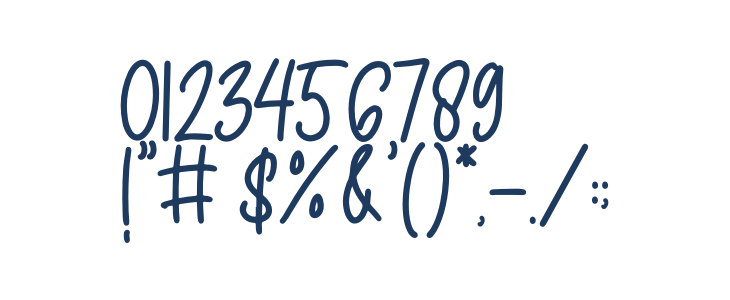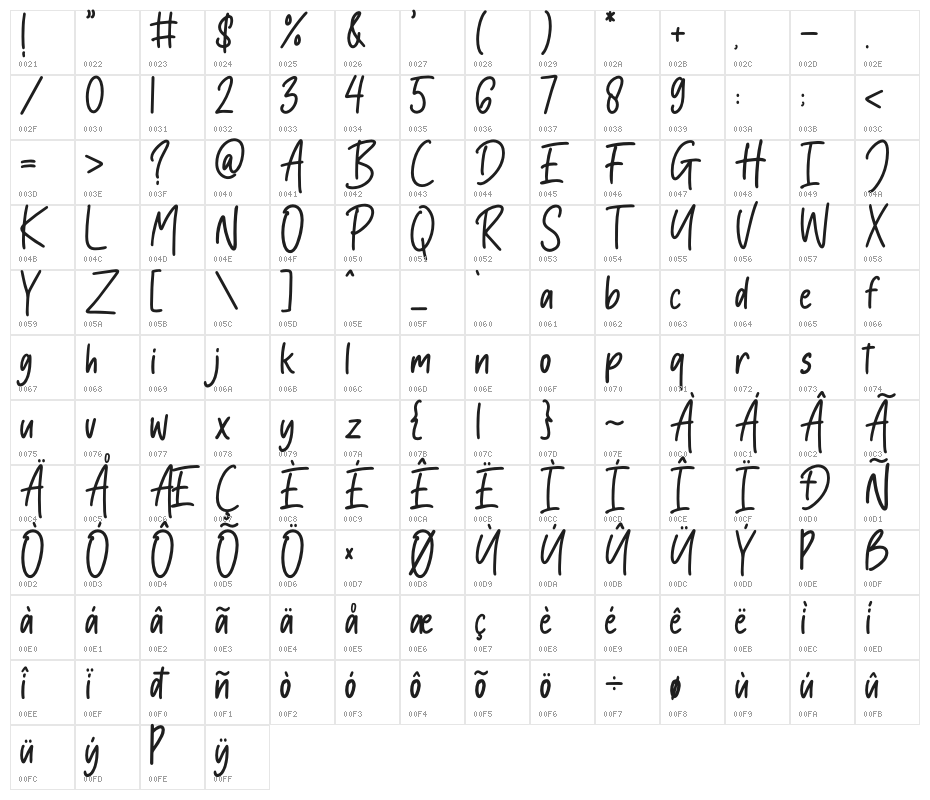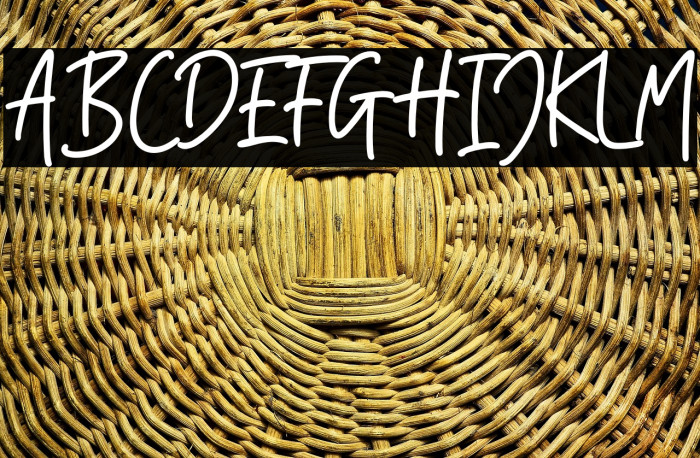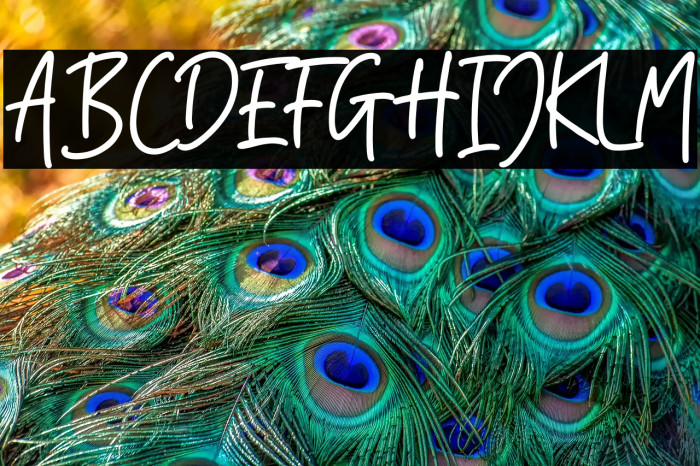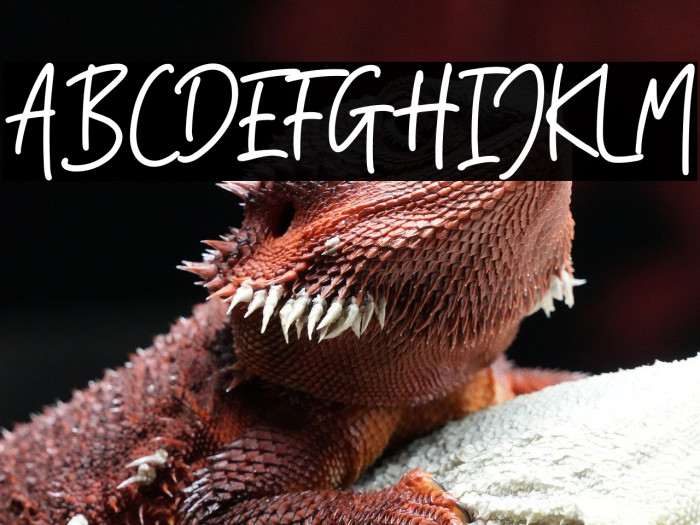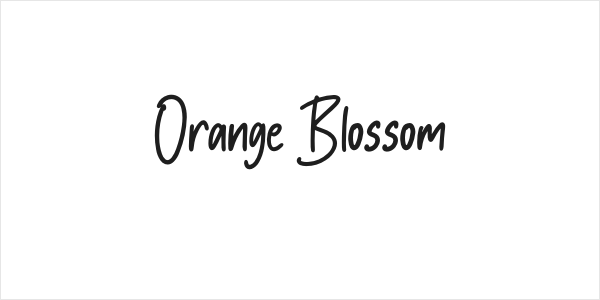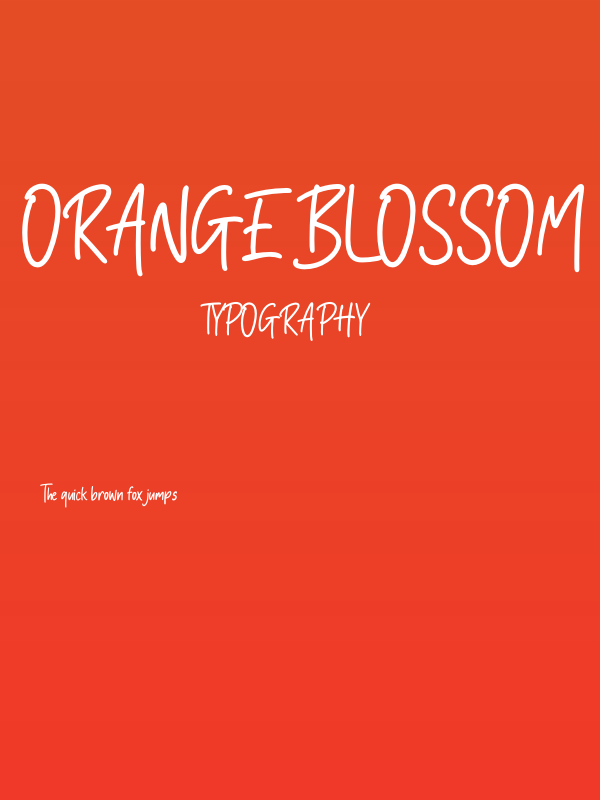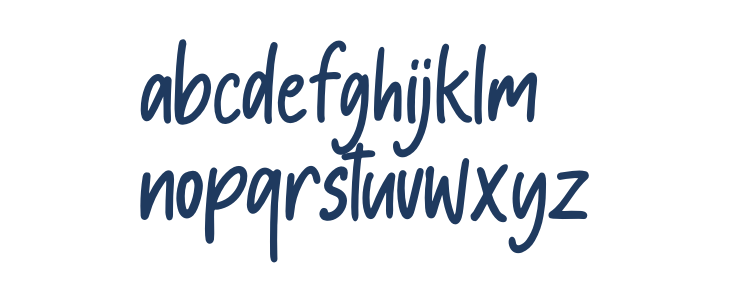
Orange Blossom Font
Orange Blossom Description
This font features a playful and casual handwritten style, characterized by its smooth, flowing lines and slightly irregular letterforms. The uppercase letters are tall and slender, while the lowercase letters are more rounded and compact, creating a harmonious balance. The numerals and special characters maintain the same whimsical aesthetic, making the font versatile for various creative applications. The strokes are consistent in width, providing a uniform appearance across all characters. This font's informal and friendly vibe makes it ideal for projects that require a personal touch.
| Use Case | Headlines, Logos, Informal text |
| Proposed Projects | Ideal for greeting cards, invitations, personal branding, and social media graphics. |